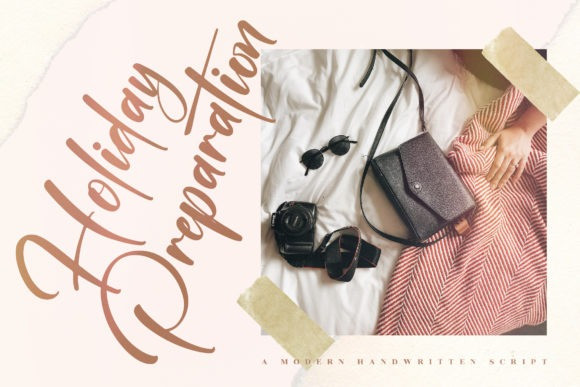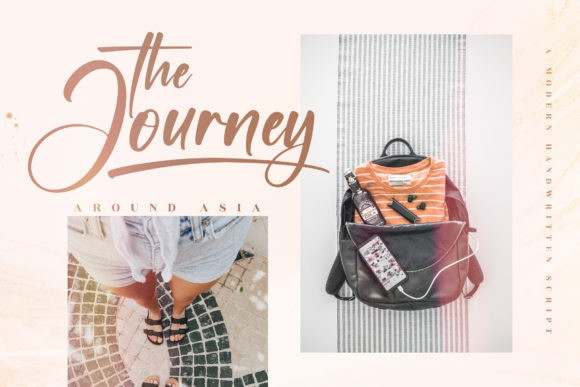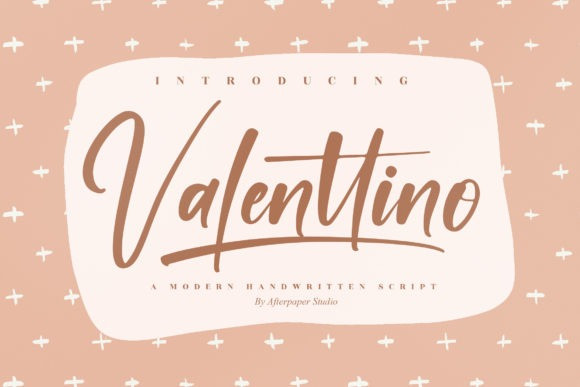
Valenttino Script Font
Valenttino Script Font, is a beautiful and refined script font. It has a classy, elegant and modern look that can be used for logos, branding, invitations, stationery, wedding designs, social media posts, and much more!